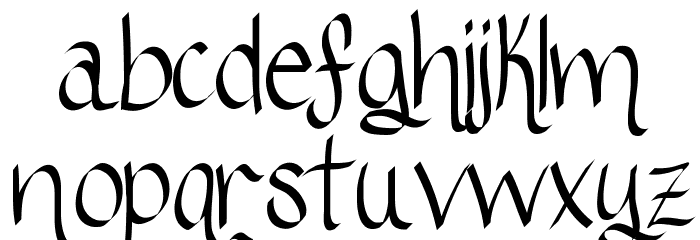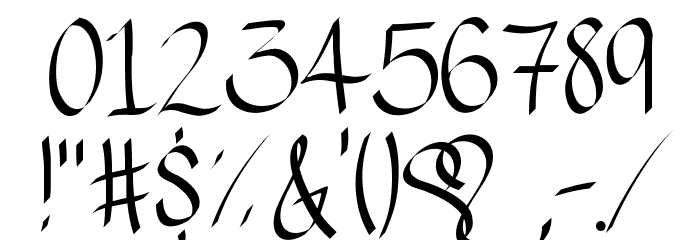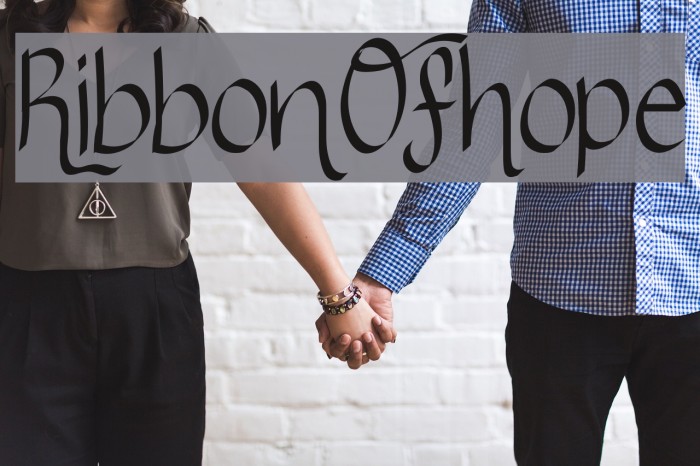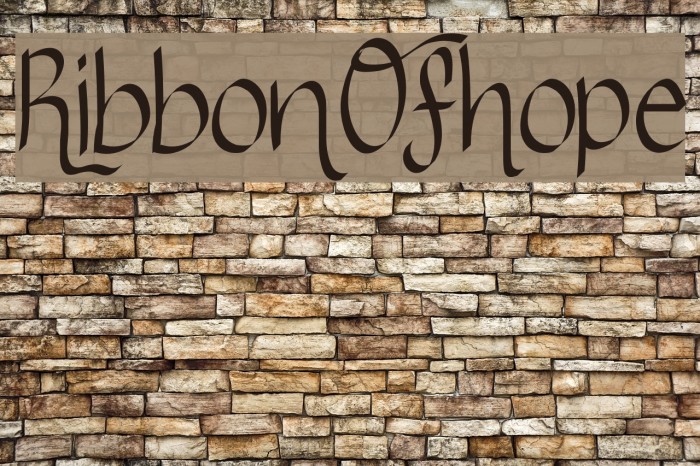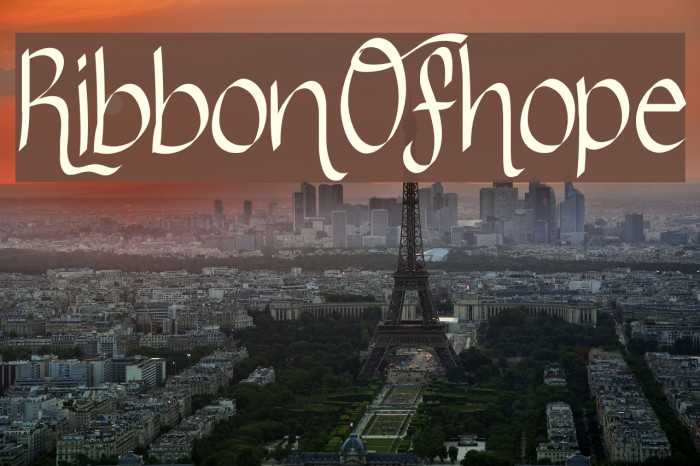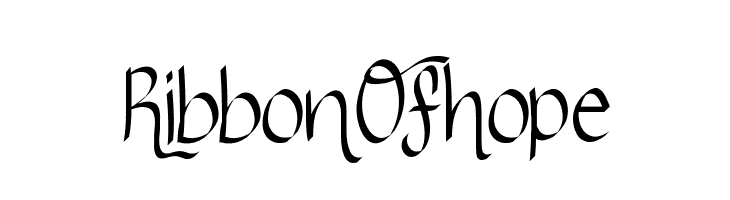
RibbonOfhope Font
This font features a unique and artistic style, characterized by its flowing, ribbon-like strokes that give it a dynamic and elegant appearance. The uppercase letters exhibit a whimsical flair with varying stroke widths, creating a sense of movement and fluidity. The lowercase letters maintain this fluidity while offering a more compact and cohesive look. Numbers and special characters are designed with the same artistic touch, ensuring consistency across all elements. The overall design is both decorative and expressive, making it suitable for creative and eye-catching projects.
A decorative font with flowing, ribbon-like strokes and dynamic elegance.
- Proposed Projects: Ideal for wedding invitations, artistic posters, branding for creative businesses, and any project requiring a touch of elegance and flair.
- Use Case: Headlines, Logos, Invitations